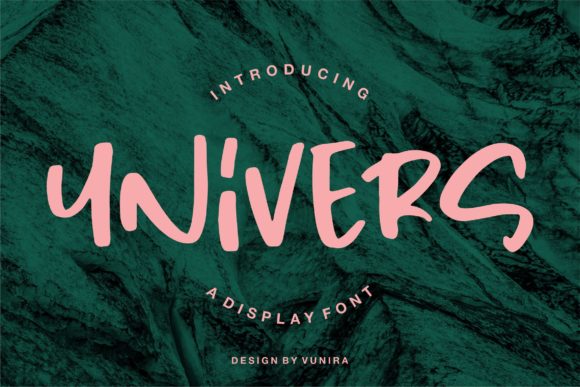
Behold Univers, the captivating display font that brings life to your creative visions. Immerse yourself in a world where brushstrokes dance and characters exude a playful, exuberant energy. Crafted by the talented Vunira, this font is a masterpiece of modern calligraphy, sure to leave an indelible mark on your designs.
Univers is not just a font; it's an experience. Its vibrant strokes evoke a sense of freedom and spontaneity, inviting you to unleash your creativity and embrace the unexpected. Whether you're designing logos, posters, or eye-catching branding materials, Univers will elevate your work to new heights of originality and style.
Step into a realm where imagination reigns supreme. With Univers, your words take on a life of their own, captivating audiences with their unique charm. Experience the joy of creating designs that resonate with your audience, leaving a lasting impression that lingers long after the page is turned.
Univers is more than just a font; it's a gateway to a world of creative possibilities. Its versatility knows no bounds, adapting seamlessly to a myriad of design projects. From business cards that exude professionalism to invitations that radiate joy, Univers is your trusted companion, transforming your ideas into tangible works of art.
Don't settle for ordinary fonts that blend into the background. Embrace the extraordinary with Univers, a font that commands attention and sparks conversations. Let your designs speak volumes, conveying messages with a depth and allure that captivates hearts and minds.
Univers is not just a font; it's a revolution. Join the ranks of creative visionaries who dare to be different, who embrace the power of typography to create designs that leave an indelible mark on the world. Make your mark with Univers, the font that ignites your imagination and sets your creativity ablaze.